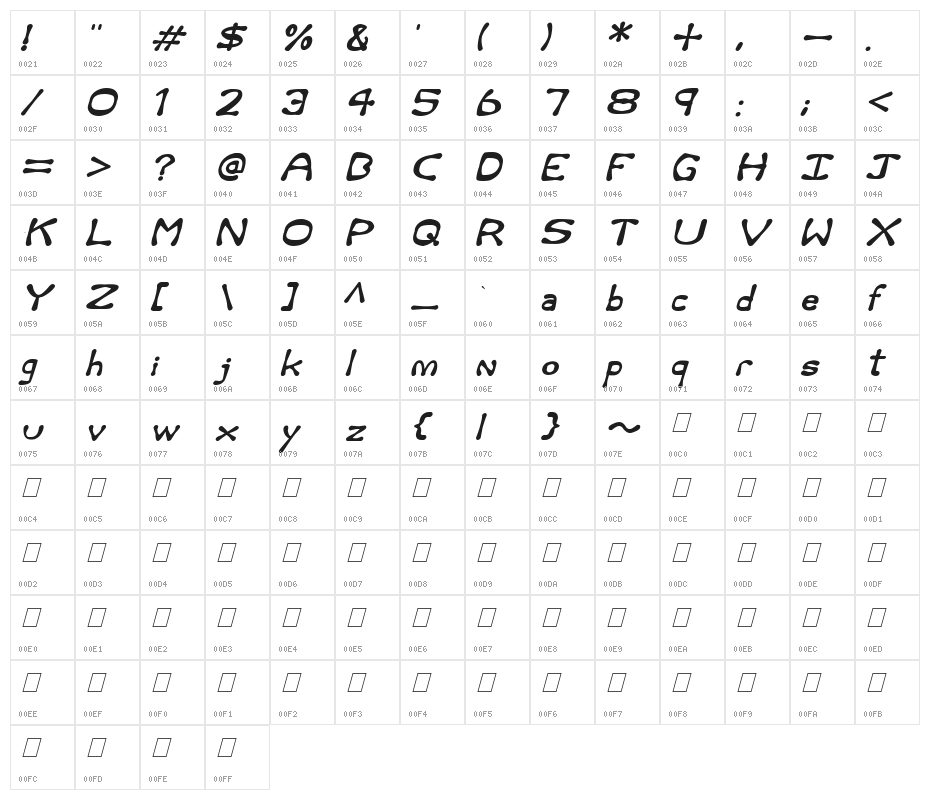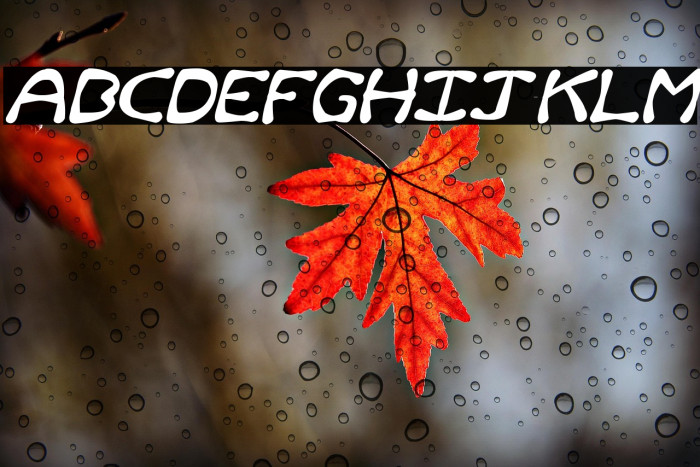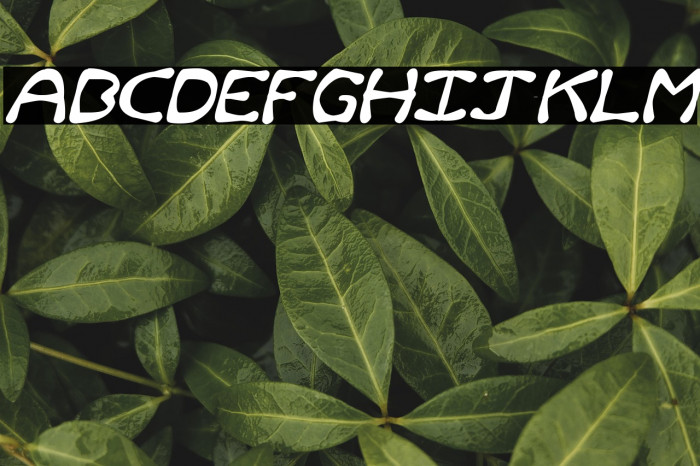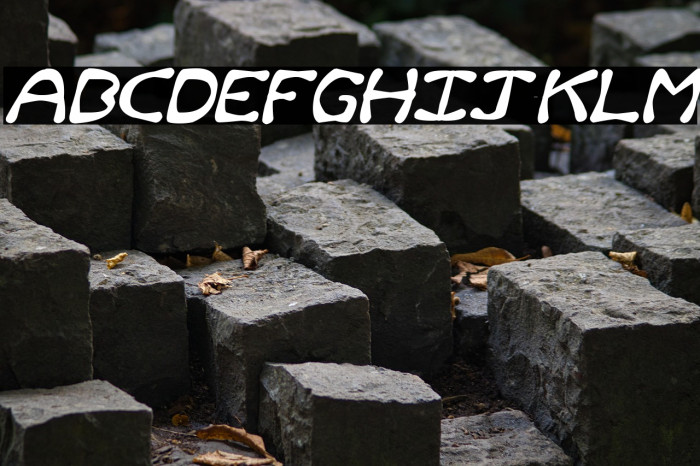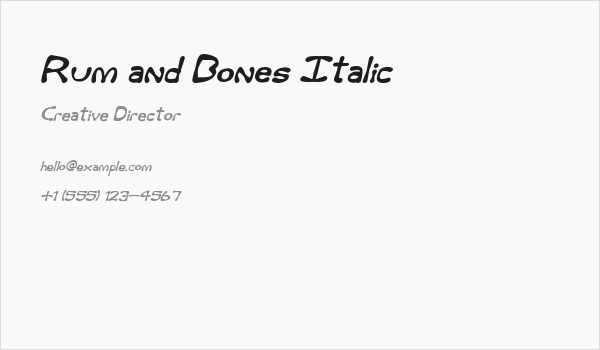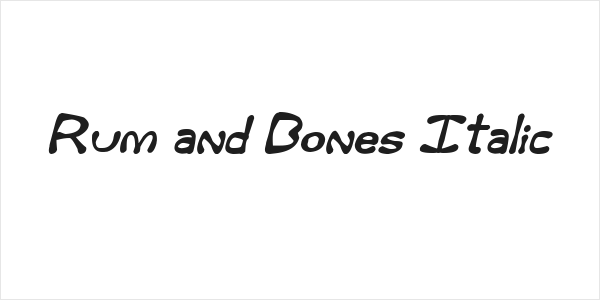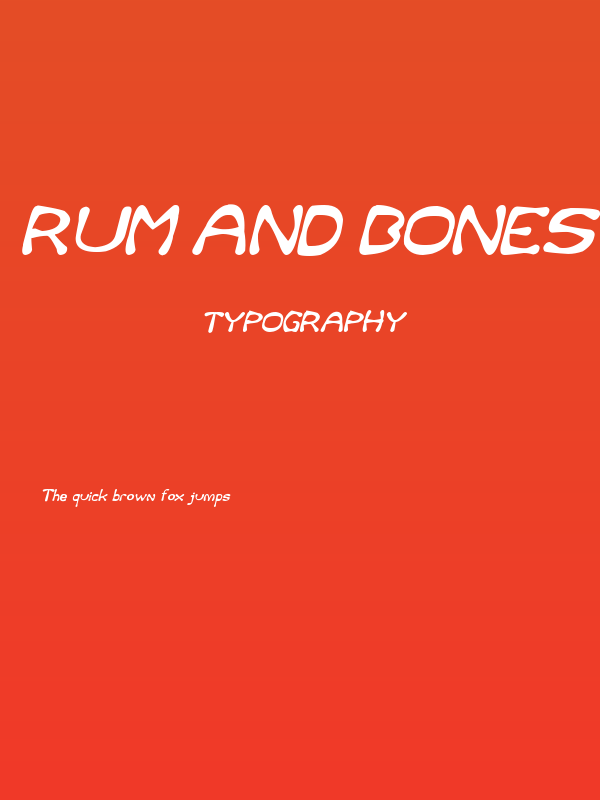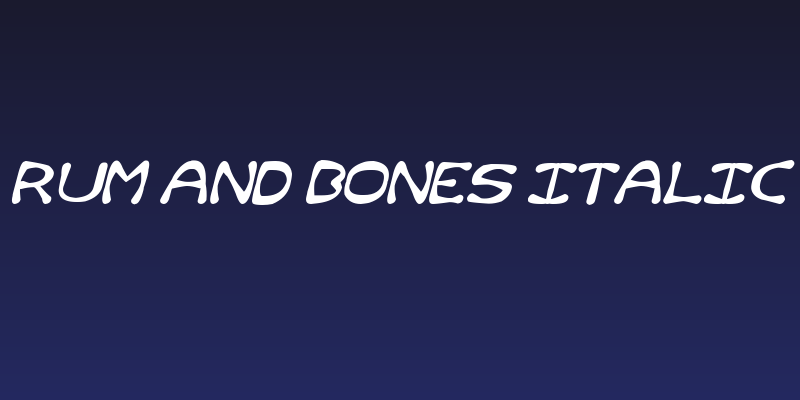
Rum and Bones Italic Font
Rum and Bones Italic Description
This font features a playful and dynamic style with a handwritten appearance. The letters are slightly slanted, giving it an italicized look that adds a sense of movement and energy. The strokes are bold and rounded, providing a friendly and approachable feel. The characters are well-spaced, ensuring readability while maintaining a casual aesthetic. This font includes a full set of uppercase and lowercase letters, numbers, and a variety of special characters, making it versatile for various design needs.